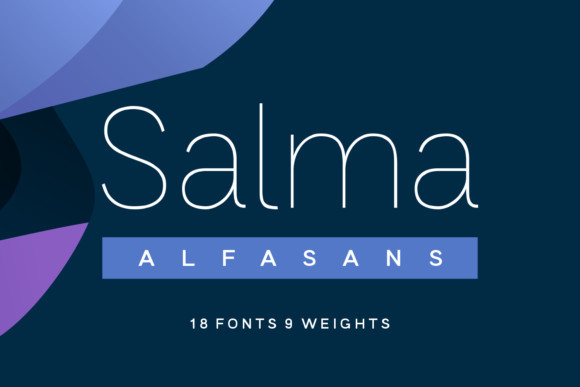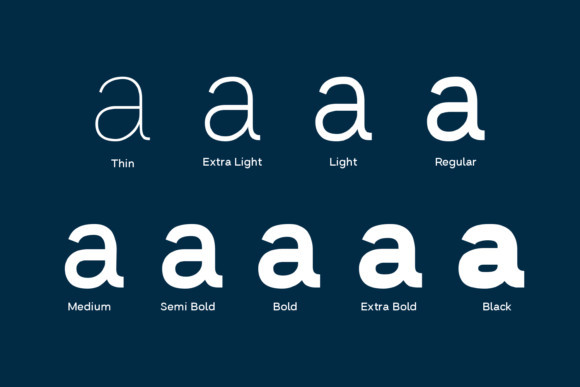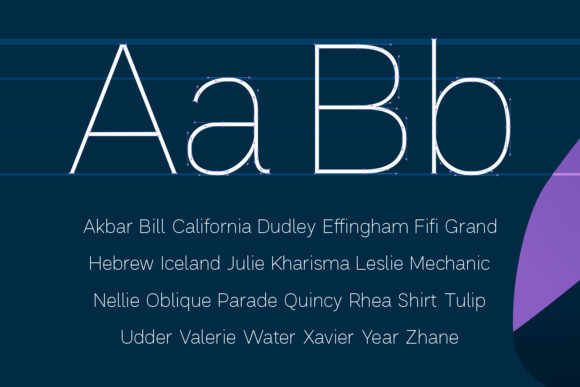
Salma Font
Salma is a thin and modern sans serif font. It can easily be matched to an incredibly large set of projects, so add it to your creative ideas and notice how it makes them stand out!